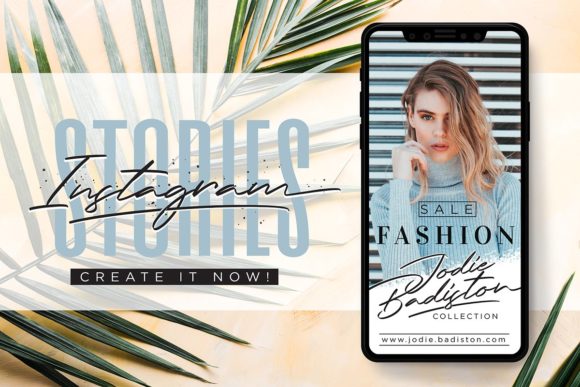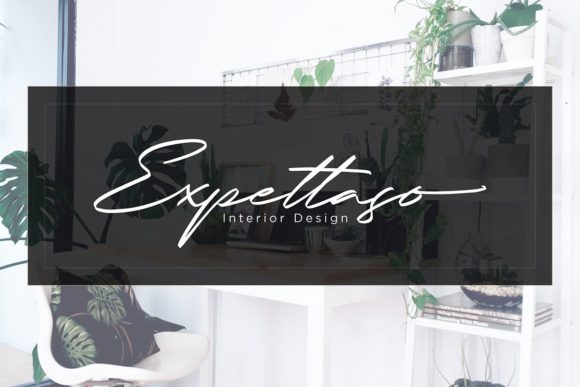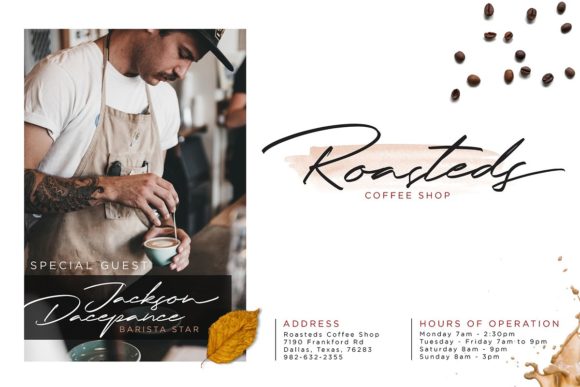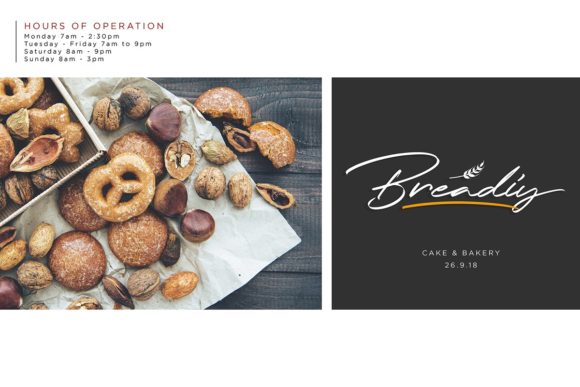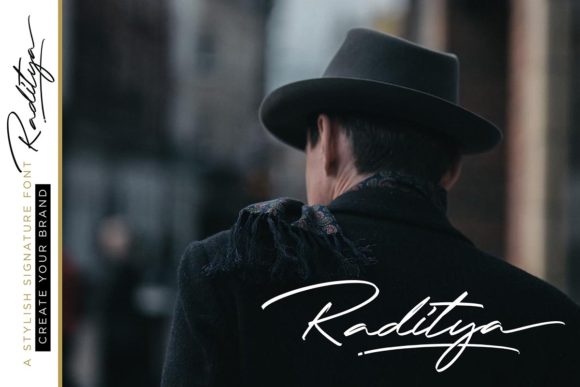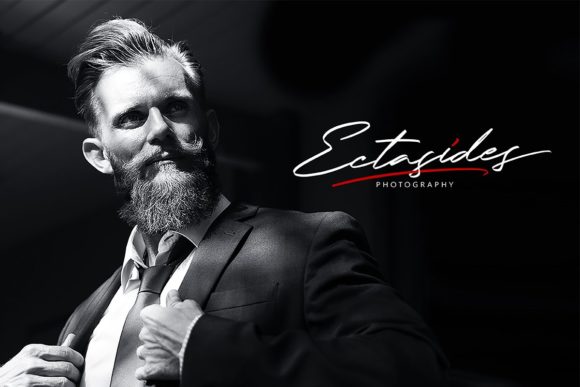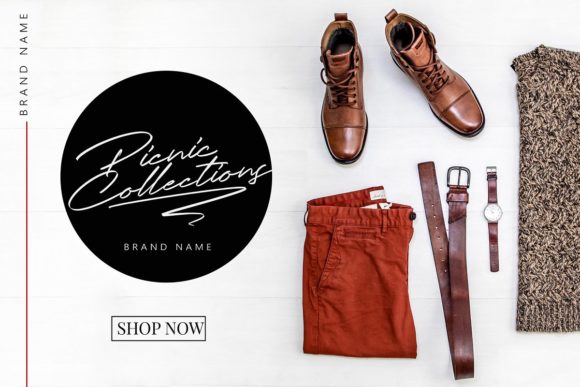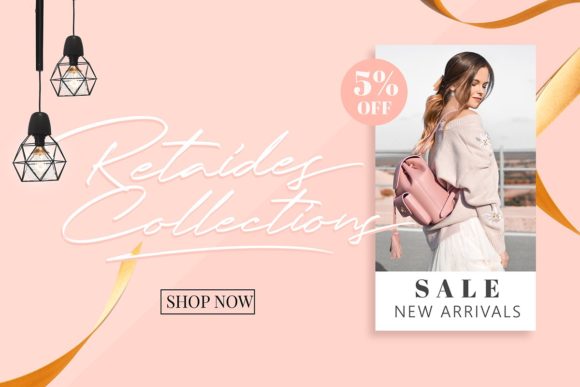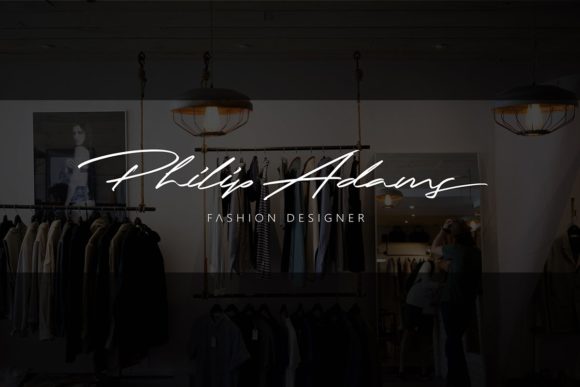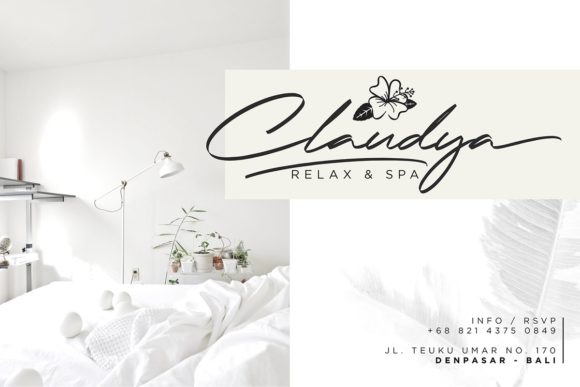
Jodie Badiston Font
About Jodie Badiston Font
Jodie Badiston is an elegant and sophisticated script font with a bold twist. Fall in love with its contemporary feel.